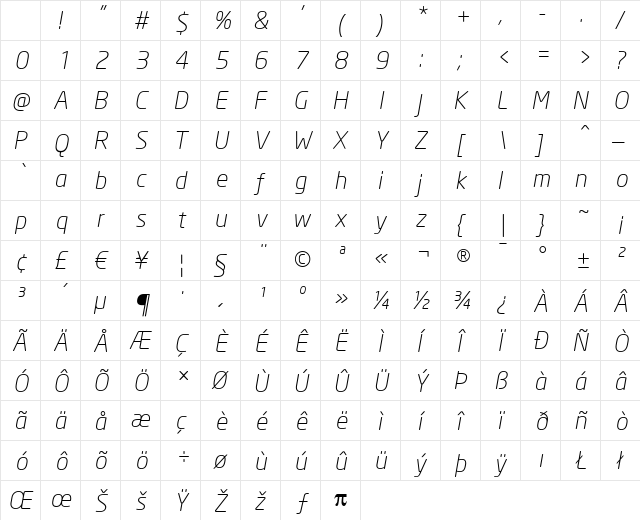
Complete Neo Sans Light Italic glyph index. Displaying only characters natively supported by Neo Sans Light Italic font.
Neo Sans is a composed and adaptable typeface that performs quietly and consistently across a wide range of design contexts. The slanted form adds forward momentum and visual energy. Its slender proportions lend an understated elegance to any composition.